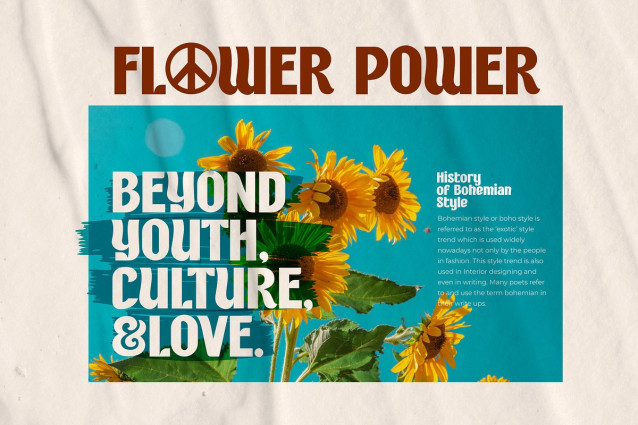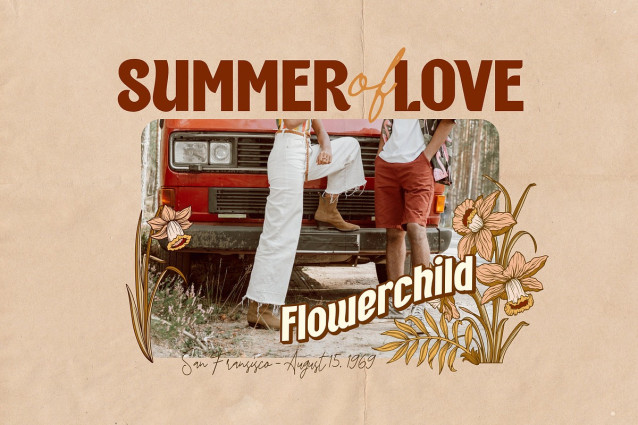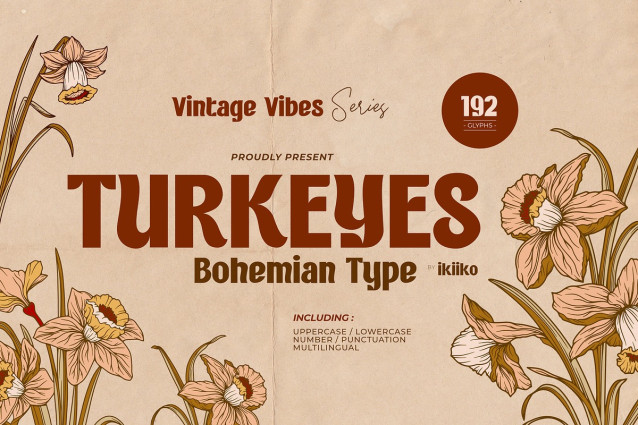
Turkeyes Font
Turkeyes Font is a vintage stylish display type that has both a modern and retro look. This font is inspired by the bohemian era, the perfect one to create layout design in the 60s or 70s. This font have unique shape that to give to your brand logo, poster, food & beverages, and another project to a have unique or vintage look.